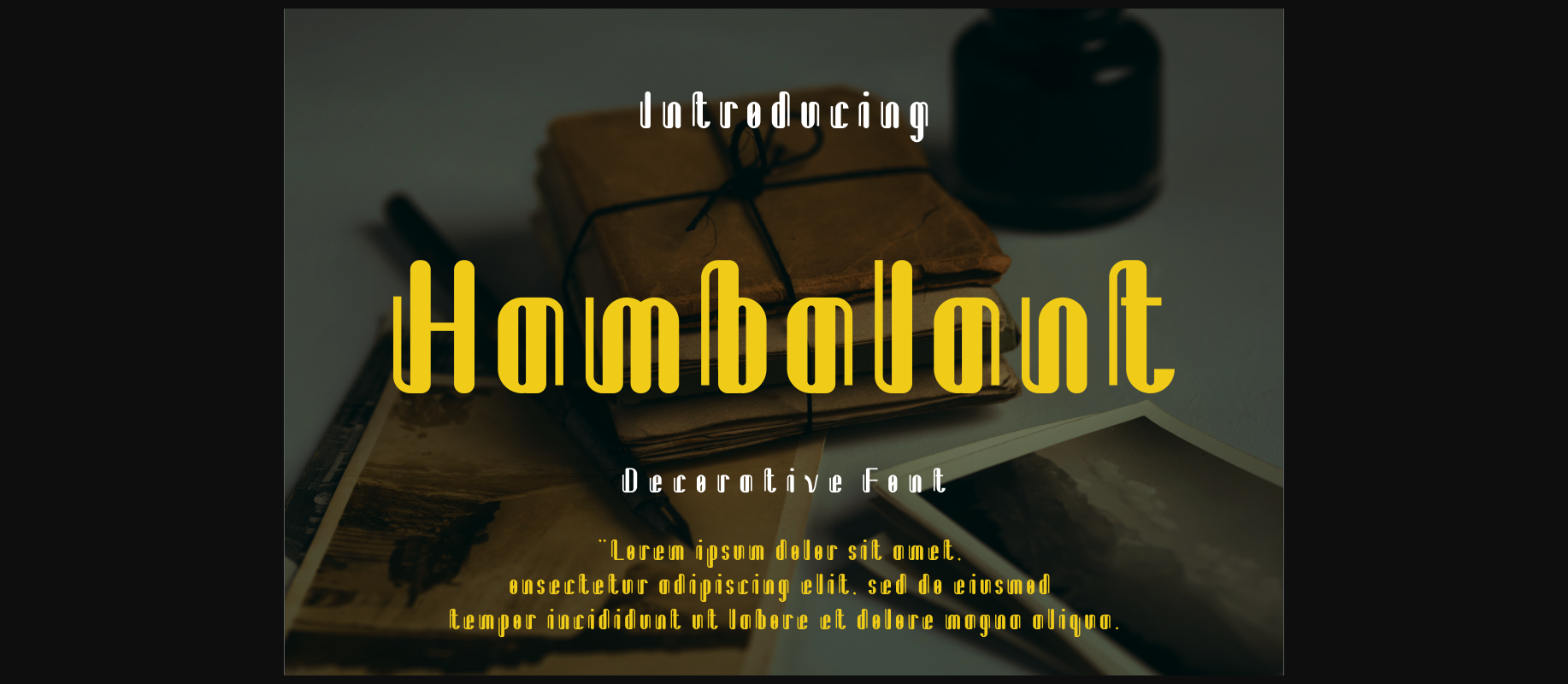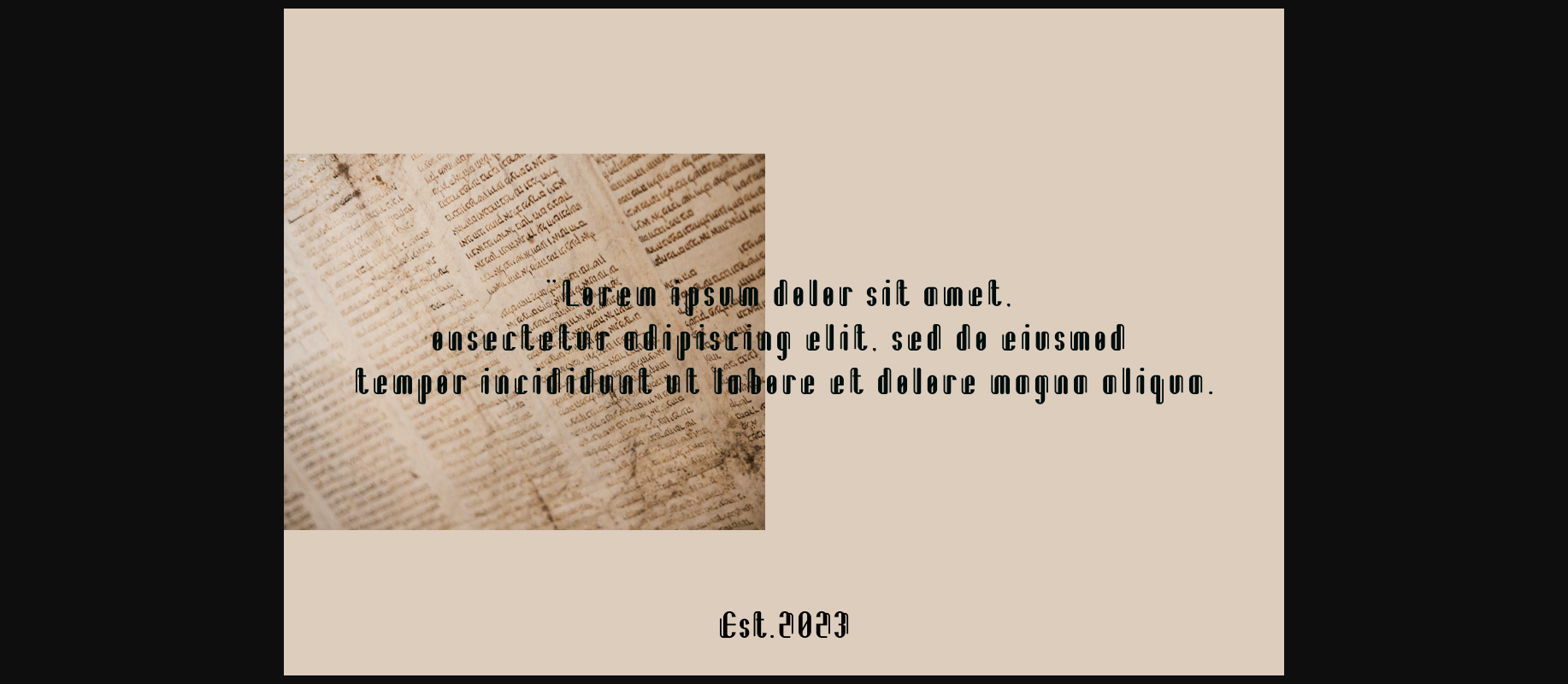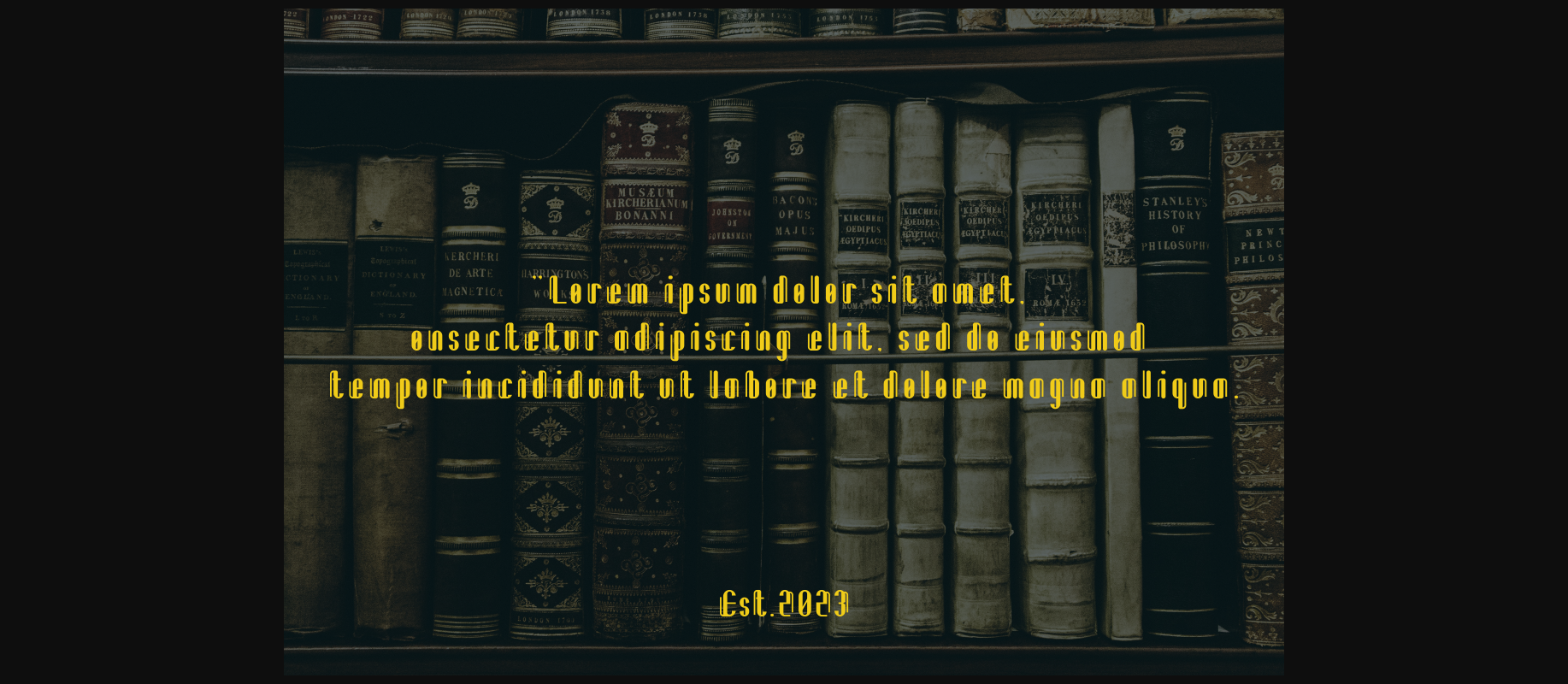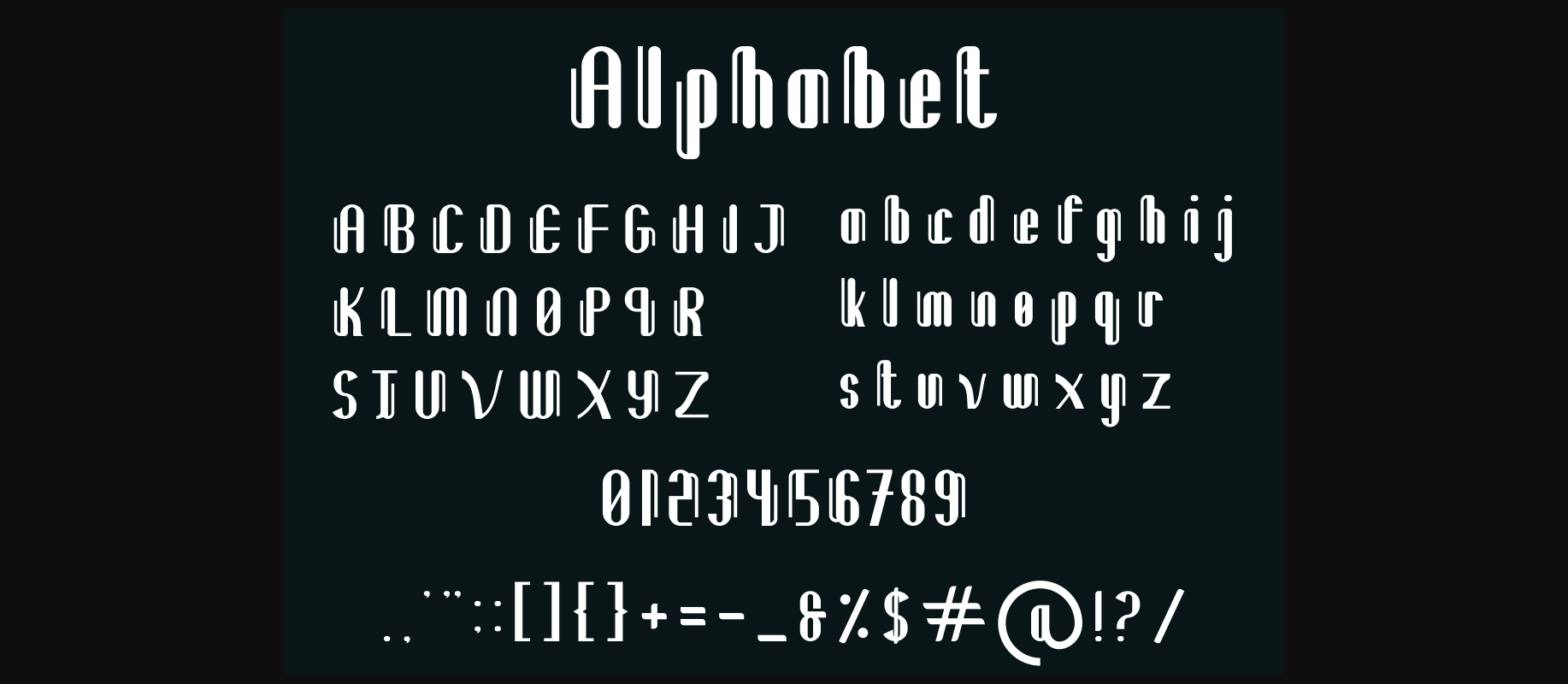
About Hambalant Font
Hambalant Font is a modern and geometric decorative font. This lovely typeface is perfect for logos, t-shirt printing, esports, and many more. Outstanding in a wide range of contexts.